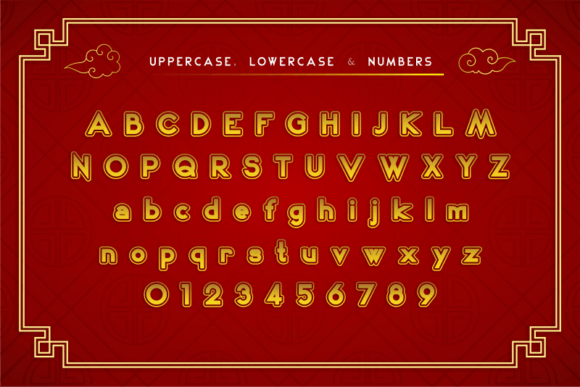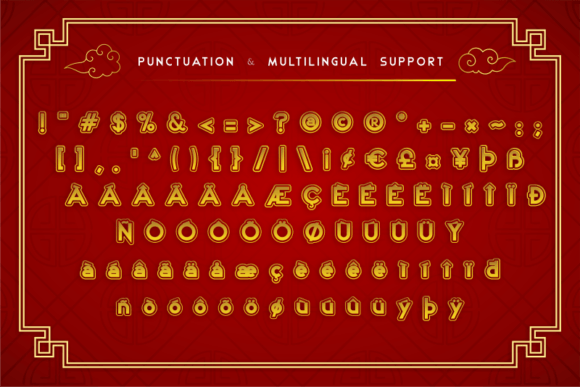
Timeless Typography: The 2020 Font
Have you ever found yourself brainstorming ideas for a project, only to be stopped dead in your tracks by the perfect font? That’s exactly what happened to many designers when they stumbled upon the 2020 Font. Its friendly and bold display style has a way of elevating any design project and giving it that extra oomph.
As a versatile and unique font, the 2020 Font is perfectly suited for a wide variety of projects. From posters and advertisements to social media graphics and presentations, this font is sure to make a statement. And with its friendly feel, it’s no wonder why designers are going crazy for the 2020 Font.
- Font Family: 2020 Font is a sans-serif font family designed for digital use.
- Unique Characteristics: Features a modern, clean design with optimized letter spacing and kerning for improved readability.
Designer Review: 2020 Font
Overall, I think 2020 Font is an interesting choice for a digital font. Here are some of its key features.
- 2020 Font has a clear, modern aesthetic that’s perfect for digital interfaces.
- The font’s geometric shapes give it a clean, minimal look that’s easy to read.
- The font family includes a range of weights, from light to bold, which is great for creating visual hierarchy.
- 2020 Font is highly legible, even at small font sizes, making it suitable for a wide range of applications.
- The font lacks personality and emotional resonance, which might make it feel bland or unengaging.
- The font’s geometric shapes can sometimes make it feel cold or sterile.
- The font family is not particularly extensive, which might limit its versatility in certain design applications.
While 2020 Font is a solid choice for digital interfaces, it doesn’t particularly stand out in terms of personality or originality. It’s a safe, dependable option that gets the job done, but it might not be the best choice for projects that require a bit more flair or character.
For best results, use 2020 Font for titles, headings, and emphasis. It’s ideal for creating a modern, clean look in digital designs. Use it sparingly to avoid overwhelming your audience.